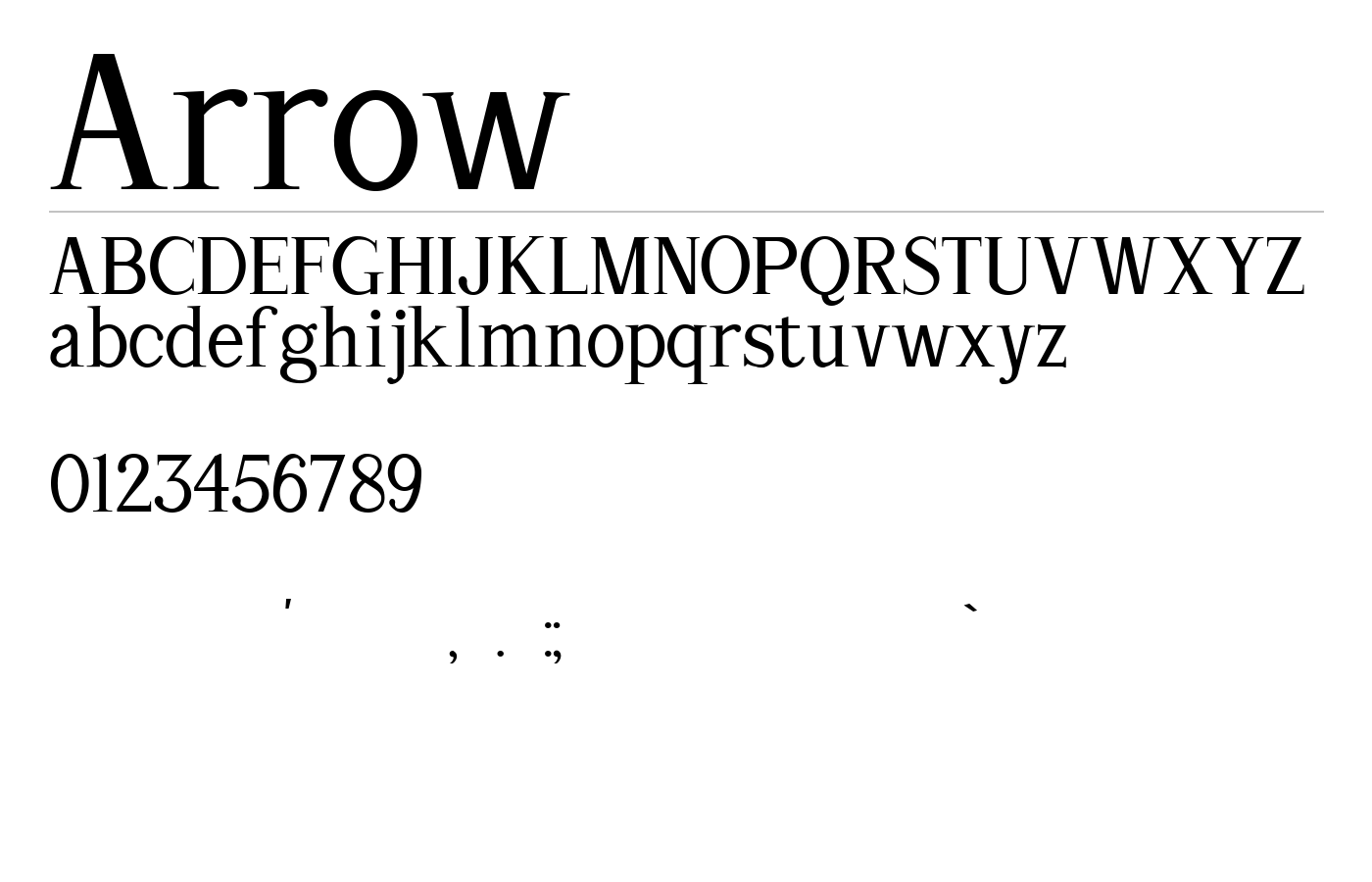
Arrow Font is an elegant serif typeface with a classic, refined feel, featuring high contrast between thick and thin strokes and delicate, bracketed serifs. Its tall x-height and well-balanced letterforms make it ideal for sophisticated editorial design, fashion branding, and high-end print projects that seek a timeless and polished appearance. This font works especially well in headlines and logos where clarity and style are paramount.
Arrow Font